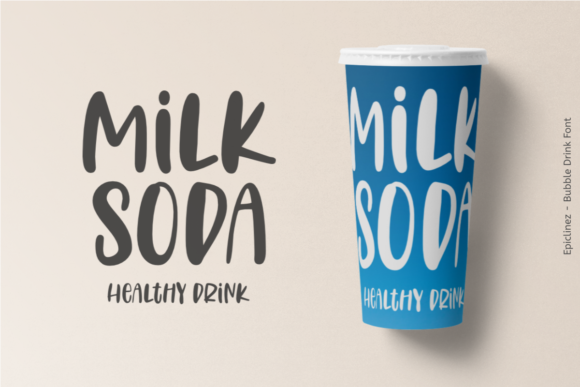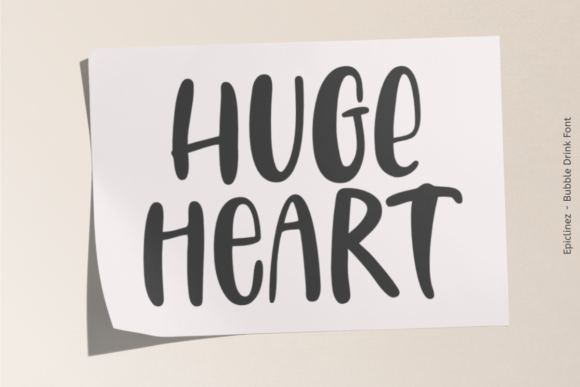
Bubble Drink Font
db-ku.com - Script & Handwritten -- Bubble Drink is a simple, fun and relaxed handwritten font. Whether you’re using it for crafting, digital designing, presentations or greeting cards making, it’s perfect!